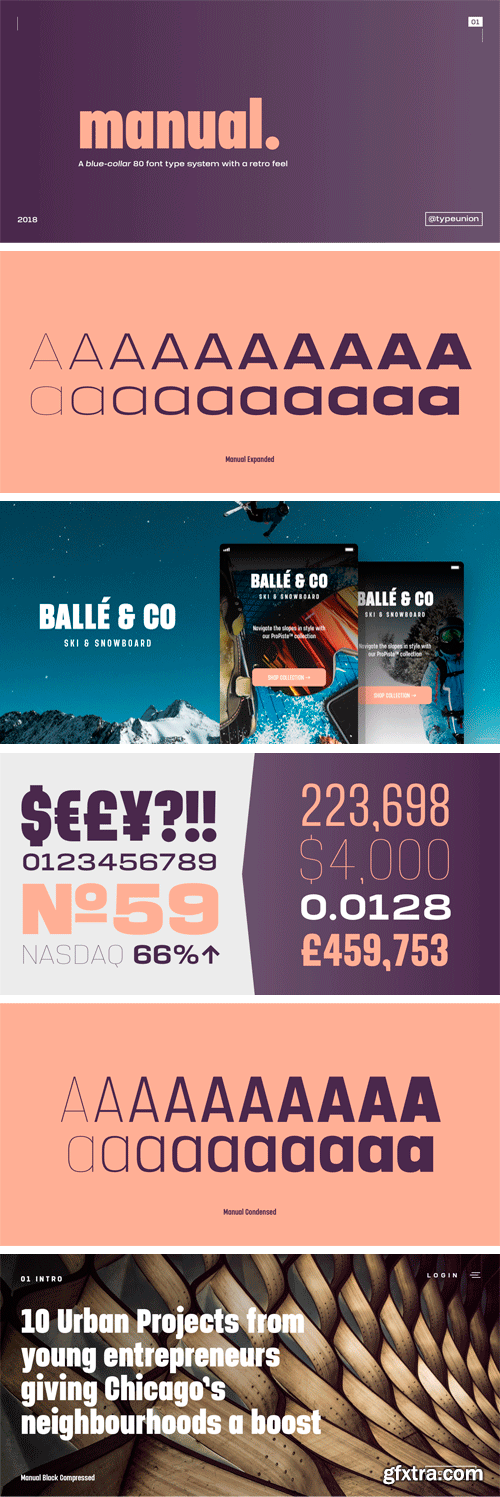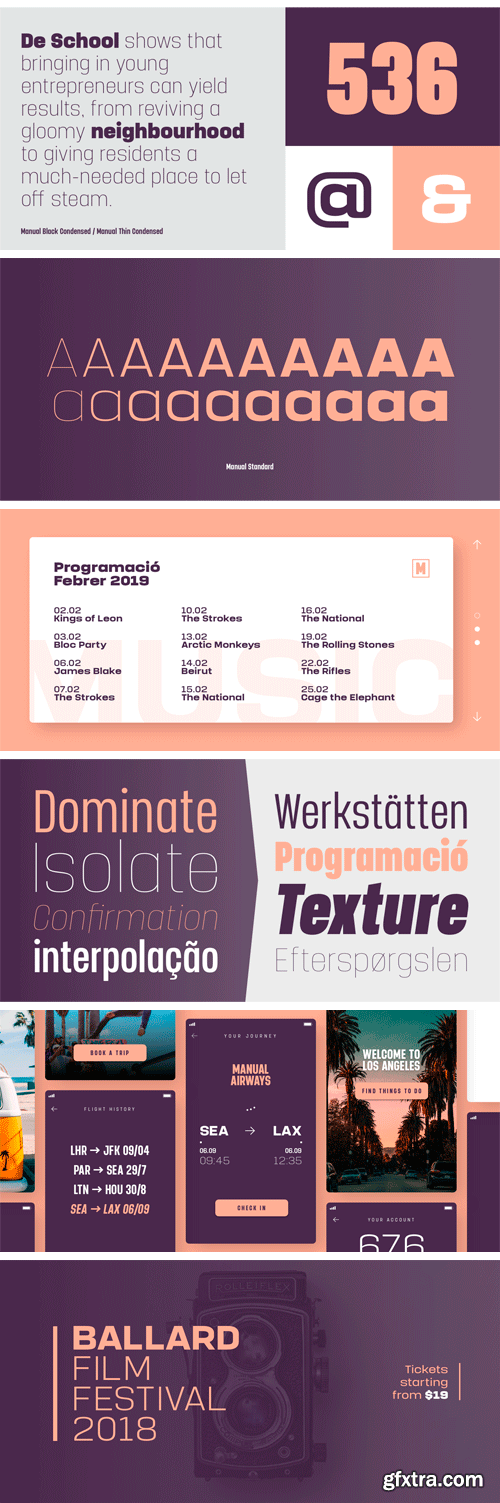
Manual is an 80 font super family formed of 10 weights in 4 different widths. The font is styled with a slight retro feel to give it a unique appearance. Manual is a blue-collar font that works hard for you and your design ideas.